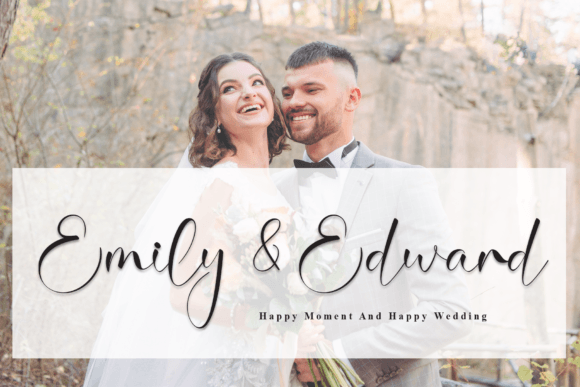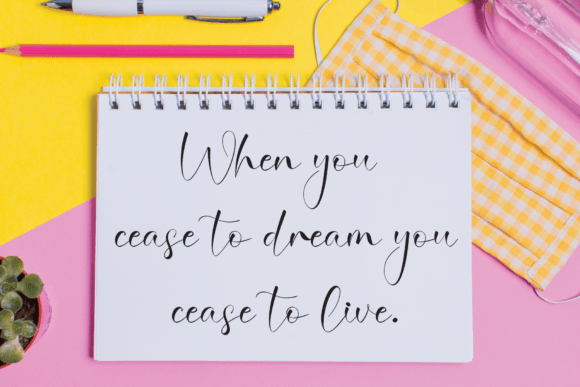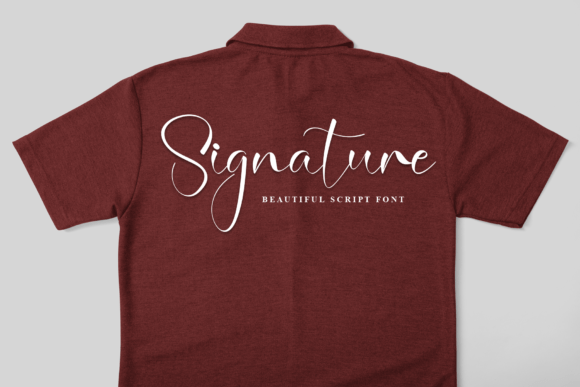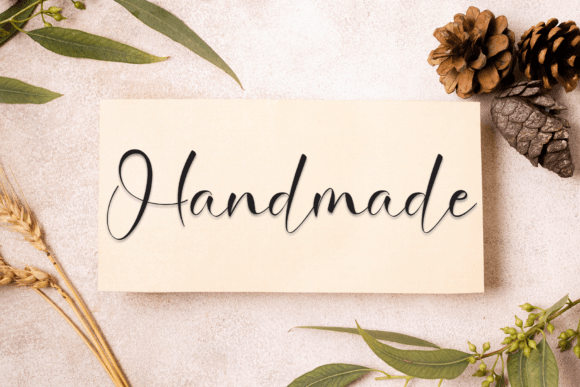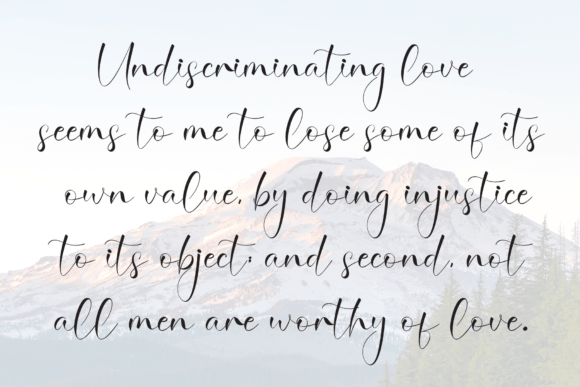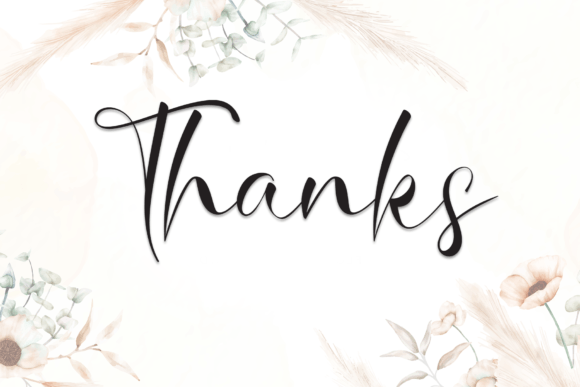
Introducing Agatha Font: Elevate Your Designs with Elegance and Style
Are you looking for a font that exudes elegance, sophistication, and a touch of handmade charm? Look no further than Agatha Font, a stunning script font that is perfect for a wide range of design projects. From wedding invitations and thank you cards to quotes, greeting cards, logos, and business cards, Agatha Font is the ideal choice for designers and crafters seeking to add a personal touch to their work.
The Beauty of Agatha Font
Agatha Font is a stylish and incredibly elegant script font that boasts a unique, handwritten aesthetic. Its flowing curves, delicate lines, and subtle imperfections evoke the feeling of a pen or pencil gliding across paper, creating a sense of warmth and intimacy. This font is perfect for designs that require a touch of sophistication, yet still convey a sense of approachability and personality.
Wedding designers and event planners, rejoice! Agatha Font is an excellent choice for creating beautiful wedding invitations, save-the-date cards, and other event-related materials. Its elegant script and romantic feel make it perfect for formal and informal weddings alike. Use it to create stunning wedding stationery, including programs, place cards, and menus, to set the tone for an unforgettable celebration.
Ideal for Quotes, Greeting Cards, and More
Agatha Font is not just limited to wedding and event designs. Its versatility makes it suitable for a wide range of projects, including:
- Quotes: Add a touch of elegance to inspirational quotes, motivational sayings, and social media posts.
- Greeting cards: Create beautiful birthday, anniversary, and holiday cards that will make your loved ones feel special.
- Logos and branding: Use Agatha Font to create a unique and memorable logo for your business or brand.
- Business cards: Stand out from the crowd with elegant and sophisticated business cards.
Why Choose Agatha Font?
So, what sets Agatha Font apart from other script fonts? Here are just a few reasons why designers and crafters love working with this font:
- Elegant and sophisticated: Agatha Font exudes refinement and poise, making it perfect for high-end designs.
- Handwritten charm: Its unique, handwritten aesthetic adds a touch of personality to any design.
- Versatile: Use it for a wide range of projects, from wedding designs to logos and branding.
- Easy to read: Despite its elegant script, Agatha Font is surprisingly easy to read, making it perfect for body text and quotes.
Tips for Using Agatha Font
To get the most out of Agatha Font, here are a few tips to keep in mind:
- Pair it with contrasting fonts: Combine Agatha Font with bold, sans-serif fonts to create visual interest and contrast.
- Experiment with colors: Agatha Font looks stunning in a range of colors, from classic black and white to bold, bright hues.
- Play with sizes: Use Agatha Font in a variety of sizes to create visual hierarchy and emphasize important text.